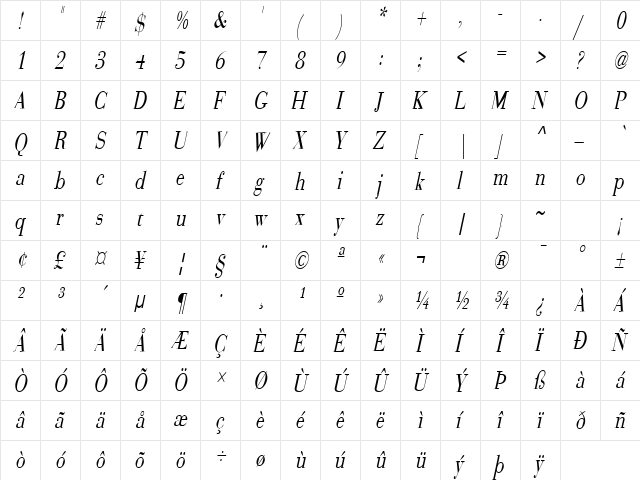
SweezCondensed Italic Font Preview
Design Context for SweezCondensed Typeface
SweezCondensed takes a measured approach to typography — its balanced proportions and neutral character make it a reliable workhorse for both digital and print work. The slanted form adds forward momentum and visual energy. Its narrow stance lets it pack a punch even in space-constrained designs.
Pro Tip: Try SweezCondensed for annotation and caption copy alongside an upright companion — the contrast in angle creates a dynamic but ordered typographic system.